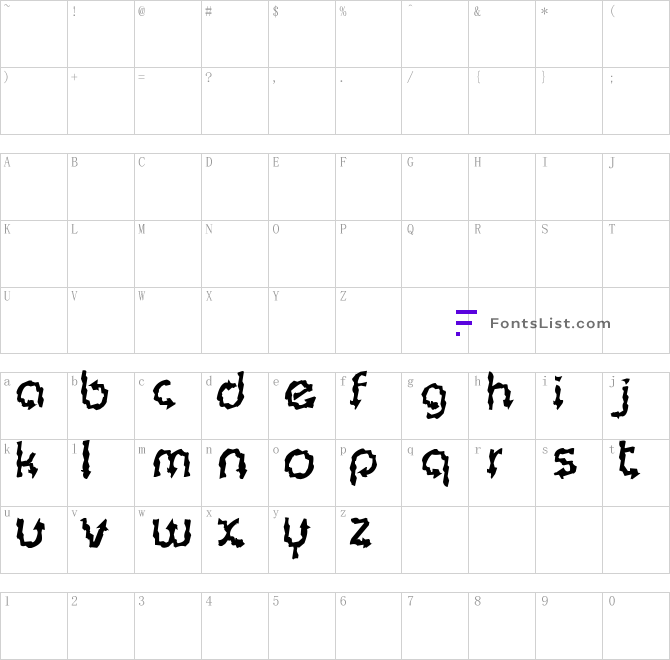
- Font Name:Barrow Irregular BC
Barrow-Irregular-BC.ttf is a very beautiful artistic font, Barrow-Irregular-BC.ttf is widely used in the design and printing of various books and pictures,Barrow-Irregular-BC.ttf has a strong visual impact,Barrow-Irregular-BC.ttf is a commonly used font in newspapers, magazines and books, and is used in posters, e-commerce Poster design, store design, logo design, font design and other fields.Barrow-Irregular-BC.